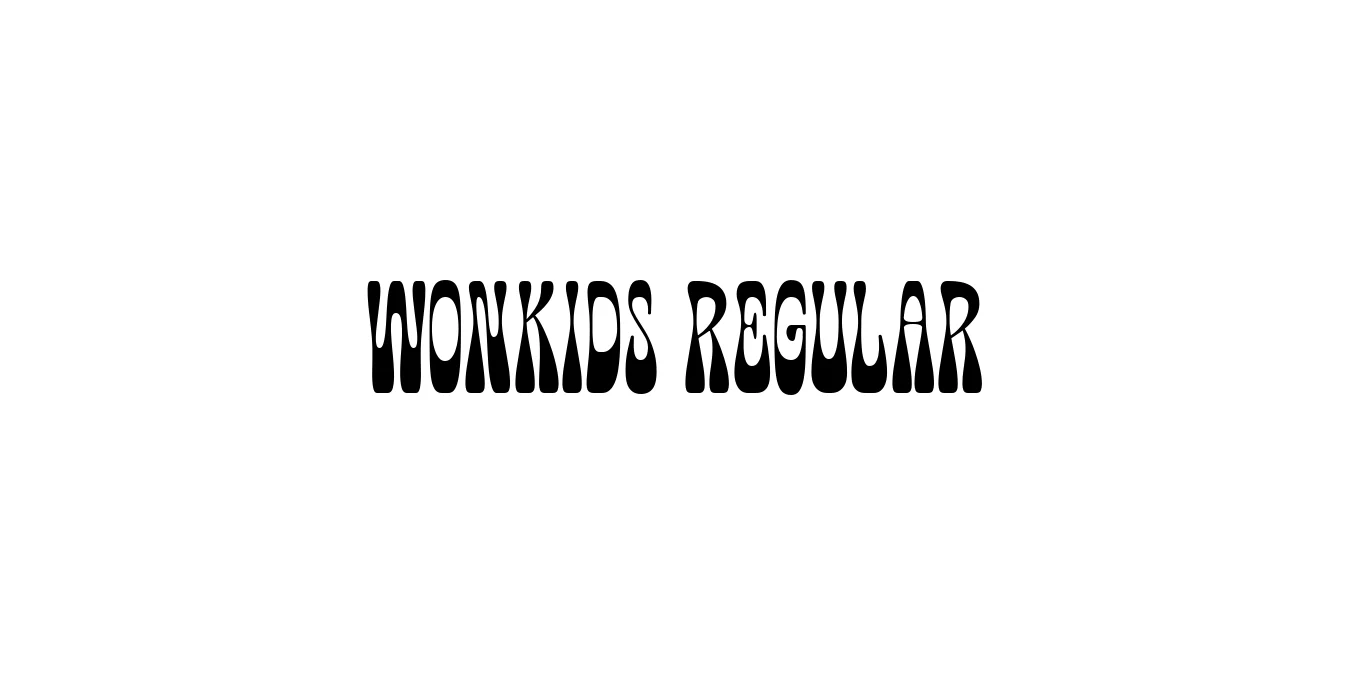
Wonkids Regular
Designed by Khurasan
| Category | Handwritten / Display |
| Designer | Khurasan |
Wonkids Regular is a delightful and expressive handwritten font crafted by Khurasan. It features soft, rounded edges and a rhythmic, bouncy baseline that captures the essence of childhood wonder and creativity. The letterforms are designed to look natural and organic, providing a friendly and approachable aesthetic that works exceptionally well in both print and digital environments.
This font is a primary choice for designers looking to inject a sense of joy and playfulness into their work. Its high legibility, despite its informal style, makes it perfect for longer headers or even short blocks of text in children's books and educational materials. Wonkids Regular stands out as a versatile tool for any project that requires a human touch and a lighthearted spirit.
Wonkids Regular Best Uses
Ideal for storybook titles, nursery rhymes, and educational workbooks.
Perfect for logos and packaging for toys, snacks, or children's apparel.
Great for creating friendly, high-engagement graphics and Instagram stories.
Suitable for birthday party invitations, school posters, and festive banners.